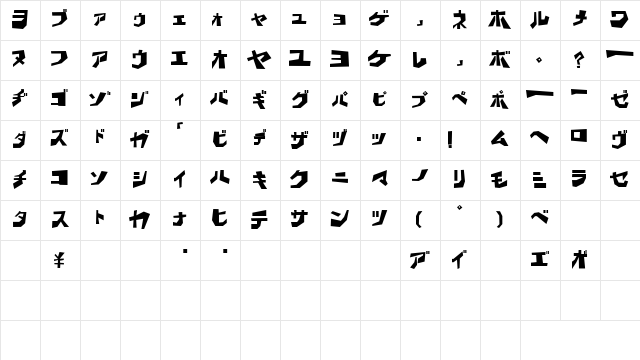
BD Wakarimasu KTA Free Font
BD Wakarimasu KTA
Style: KTA
Design Context for BD Wakarimasu
BD Wakarimasu is a composed and adaptable typeface that performs quietly and consistently across a wide range of design contexts. Its bold stroke weight gives it real presence on the page.